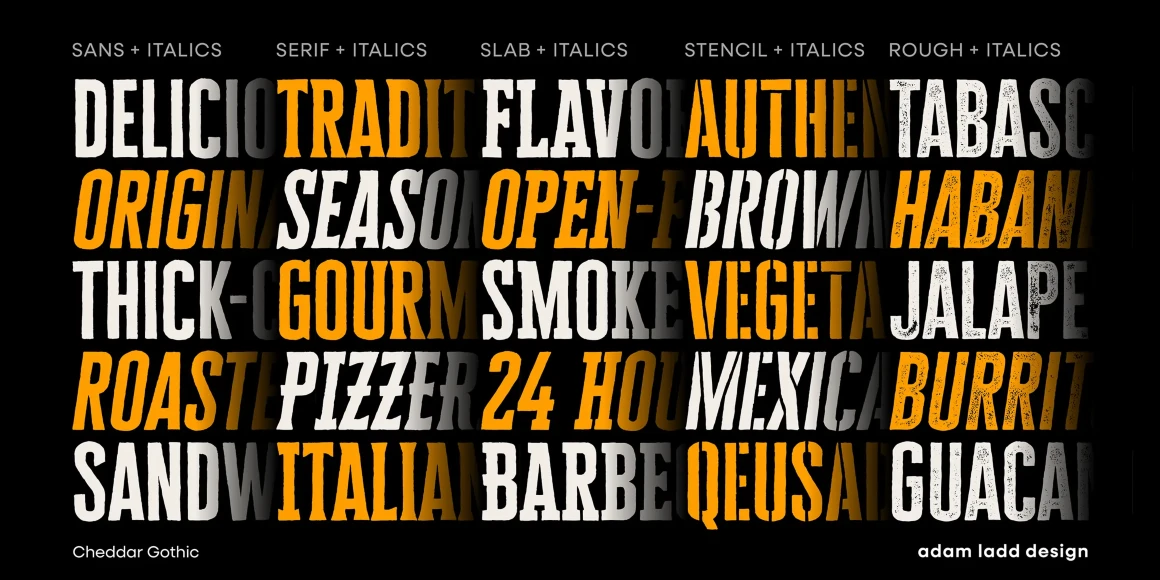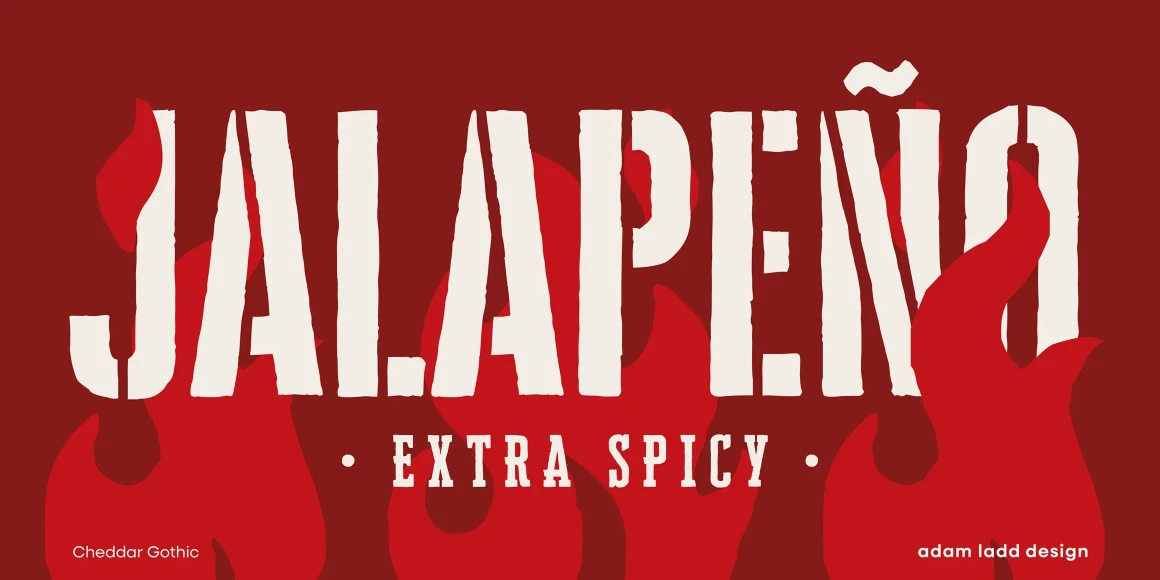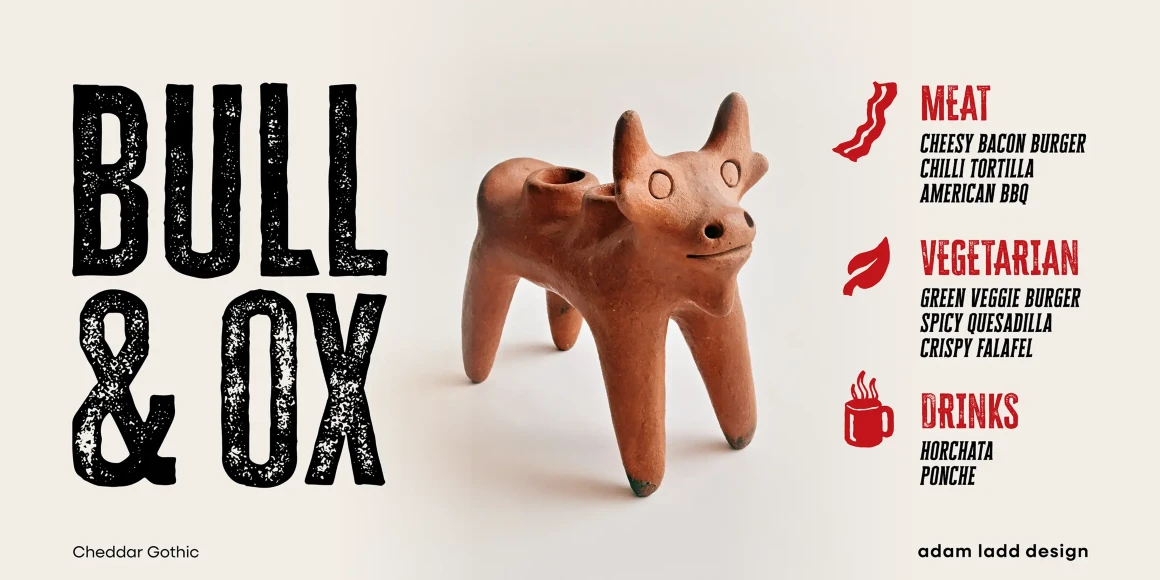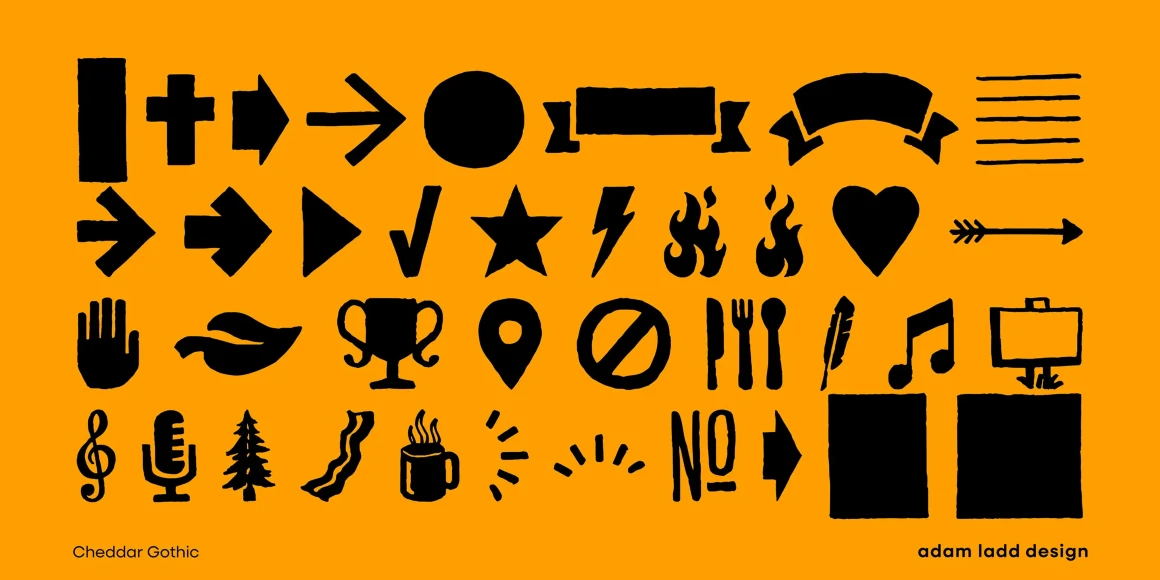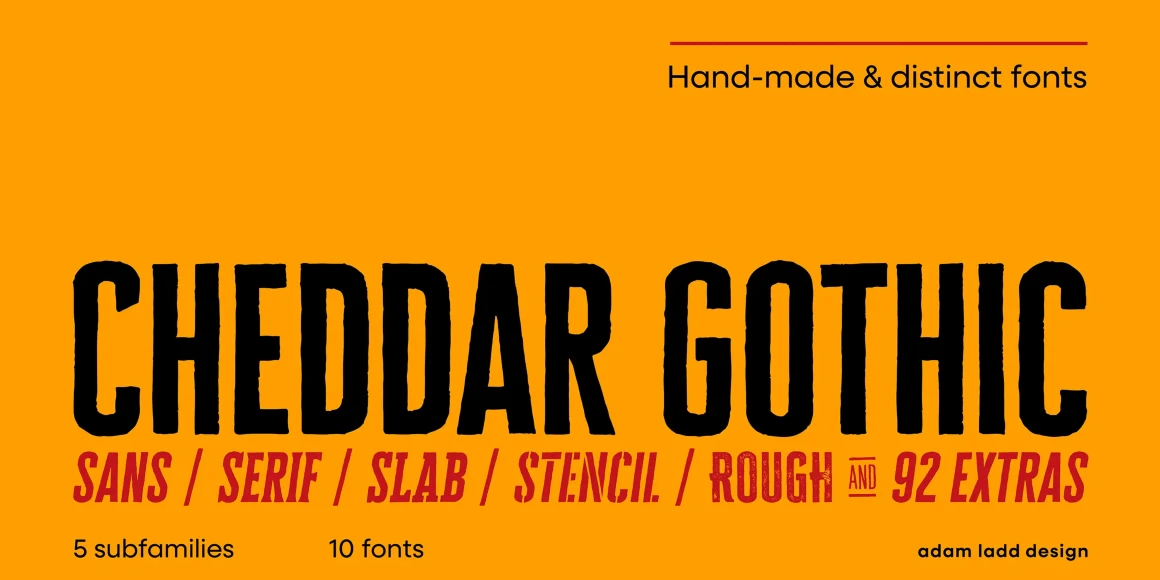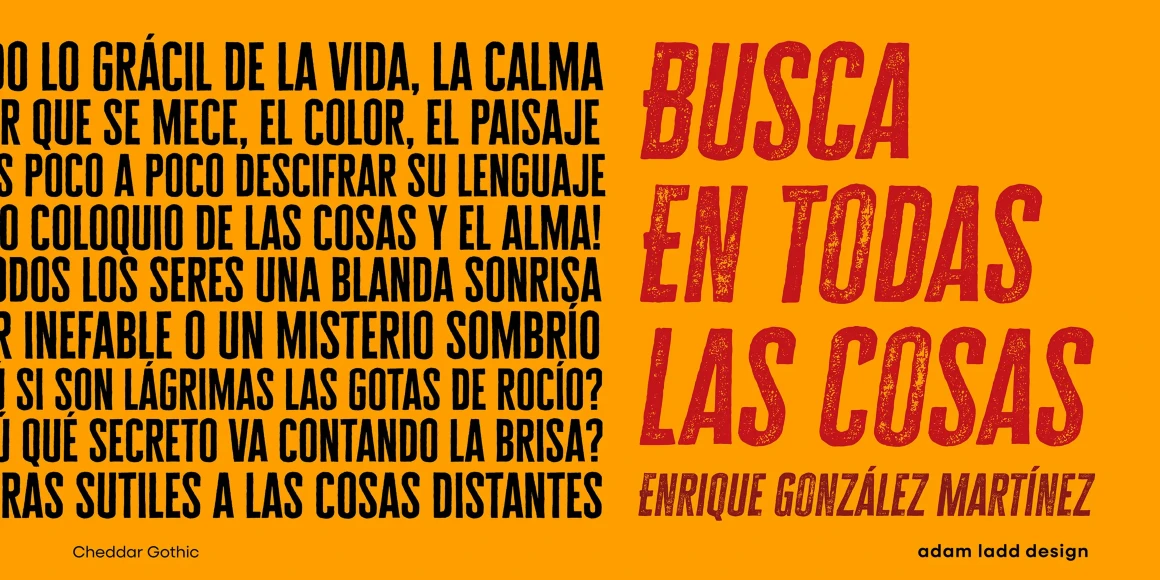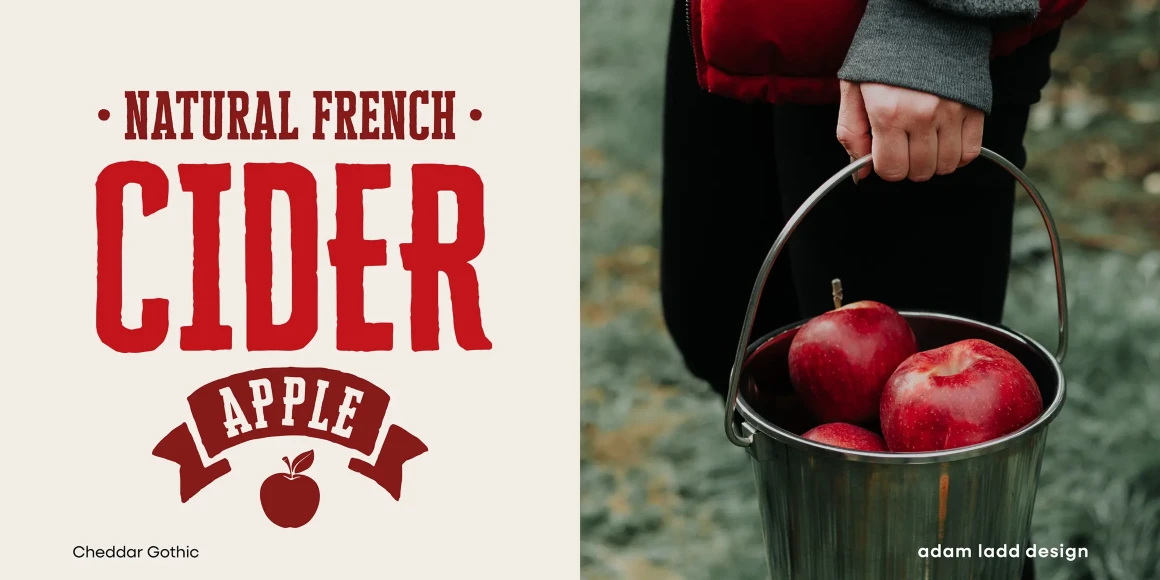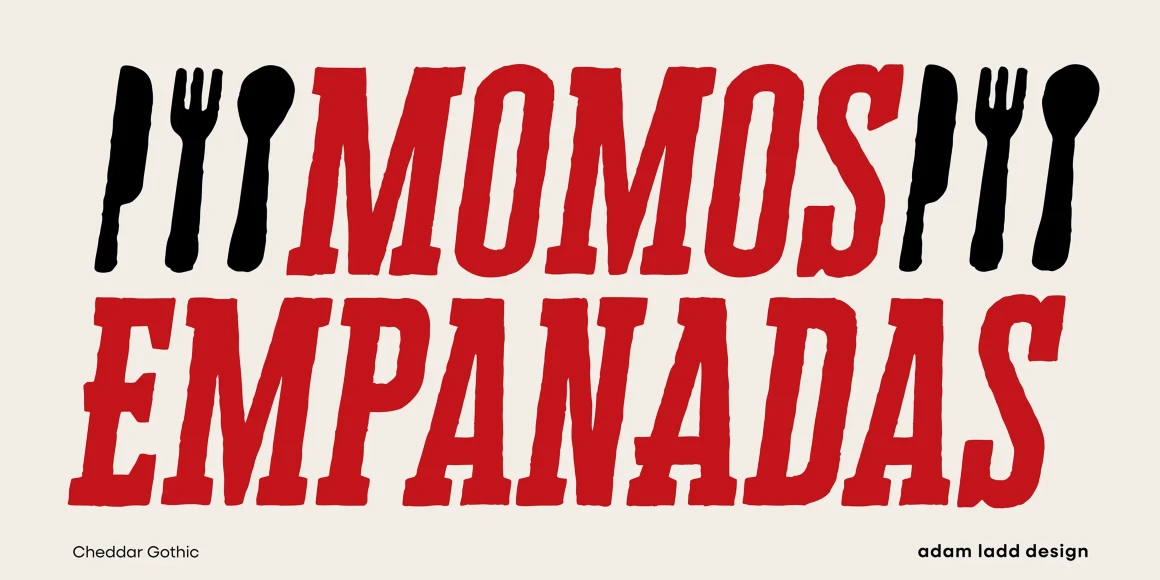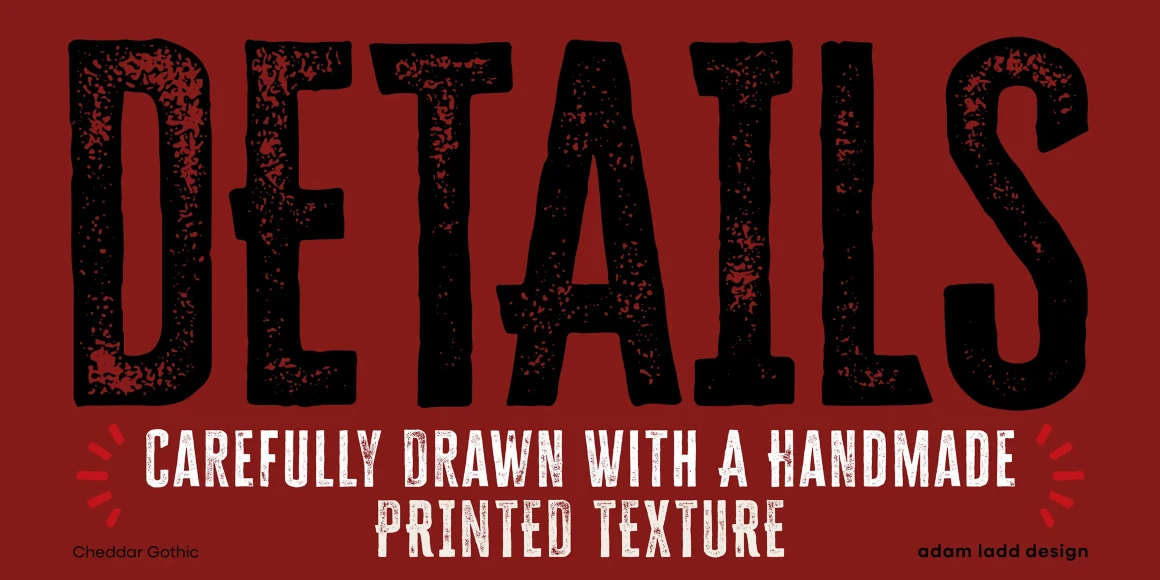
Cheddar Gothic
By Adam Ladd
Cheddar Gothic is a deliberately rough-hewn sans typeface. Each style in the family is rugged, readable, and thoughtfully hand-drawn. They all stand tenaciously tall and are well-suited for communicating diverse ideas, including wanderlust travel, urban campaigns, artisanal food packaging, concert posters, gaming merchandise, social media brands, and magazine headlines! This all-caps family includes Sans, Serif, Slab, and Stencil, with Italics, as well as 92 matching catchwords and icons.